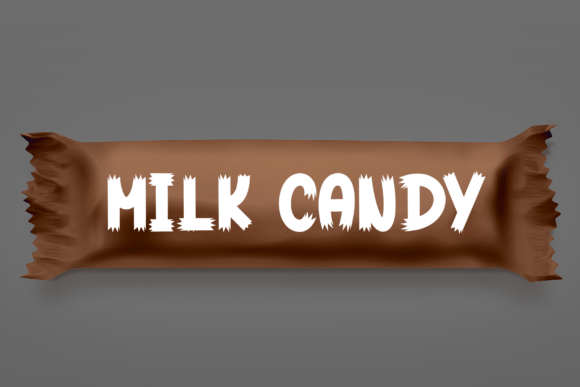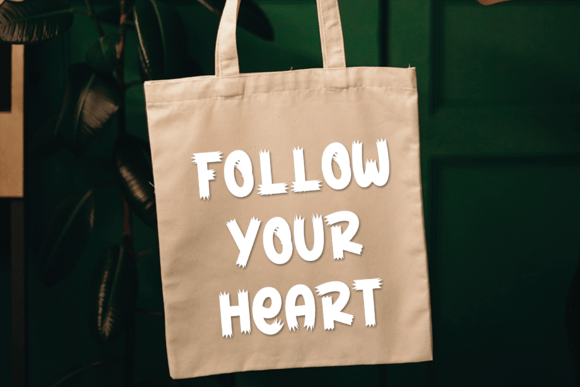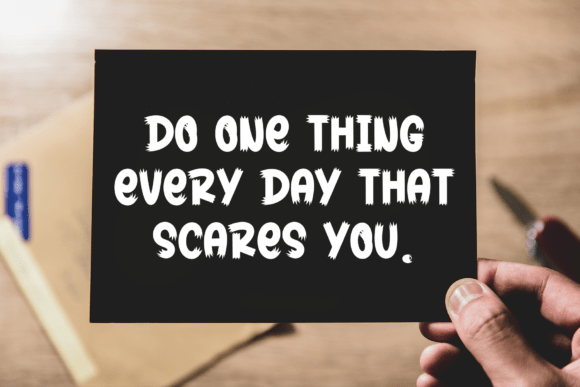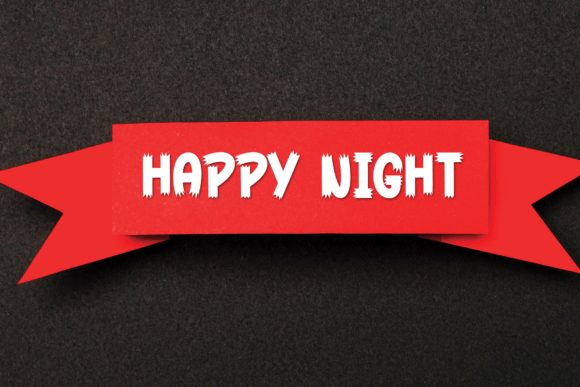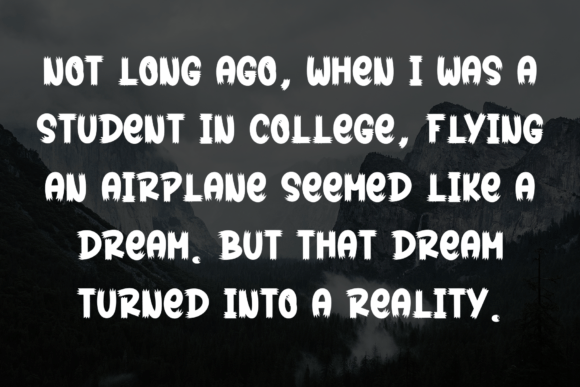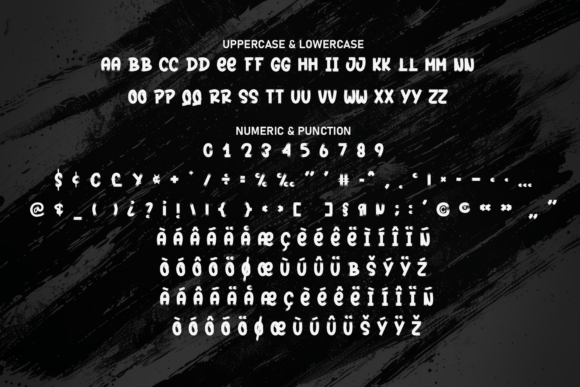
Unleash the Charm of Black Brush Font: Where Playfulness Meets Sophistication
In the world of typography, few fonts manage to strike a balance between playfulness and sophistication as effortlessly as the Black Brush Font. This delightful display font is a masterpiece of handwritten artistry, boasting a sweet and friendly demeanor that instantly captures the hearts of designers and crafters alike. With its unique blend of quirkiness and elegance, Black Brush Font is the perfect addition to any design project that yearns for a dash of fun and a pinch of personality.
The Allure of Handwritten Artistry
Handwritten fonts have always been a favorite among designers, and for good reason. They bring a level of warmth and humanity to a design that is hard to replicate with more traditional typefaces. The Black Brush Font takes this concept to the next level, with its bold, expressive strokes and charming imperfections that make it feel like it was written just for you. Whether you’re working on a wedding invitation, a greeting card, or any other design project, this font is sure to infuse it with a sense of personality and whimsy.
A Font that Wears its Heart on its Sleeve
One of the things that sets the Black Brush Font apart from other display fonts is its inherent lovable quirkiness. This font isn’t afraid to show off its playful side, with strokes that dance across the page and a carefree attitude that’s impossible to ignore. And yet, despite its playful nature, the Black Brush Font also possesses a certain level of sophistication that makes it perfect for more formal design projects. It’s a delicate balance to strike, but one that this font manages with ease.
Bringing Life to Your Designs
So what can you do with the Black Brush Font? The possibilities are endless, but here are a few ideas to get you started:
- Wedding Invitations: Add a touch of romance and whimsy to your wedding invitations with this beautiful font. It’s the perfect way to set the tone for a fun and playful wedding celebration.
- Greeting Cards: Whether you’re making a card for a birthday, anniversary, or just because, the Black Brush Font is sure to make it feel extra special.
- Design Projects: From posters and flyers to brochures and business cards, this font is the perfect addition to any design project that needs a dash of personality.
The Power of Personality in Typography
Typography is about more than just conveying information – it’s also about evoking emotions and creating a connection with your audience. The Black Brush Font understands this, and that’s why it’s been designed to impart an inviting, warm touch that captivates attention and stirs emotions. Whether you’re working on a design project for a client or for your own business, this font is sure to help you connect with your audience on a deeper level.
Why Choose the Black Brush Font?
With so many fonts to choose from, why should you choose the Black Brush Font? Here are just a few reasons:
- Unique: This font is one-of-a-kind, with a personality that’s all its own.
- Versatile: From formal to informal, this font is perfect for a wide range of design projects.
- Easy to Read: Despite its playful nature, the Black Brush Font is easy to read, even in larger blocks of text.
In conclusion, the Black Brush Font is a true gem in the world of typography. With its unique blend of playfulness and sophistication, it’s the perfect addition to any design project that needs a dash of fun and personality. Whether you’re a designer, crafter, or just someone who appreciates the art of typography, this font is sure to delight. So why wait? Download the Black Brush Font today and unleash the charm of handwritten artistry in your designs!